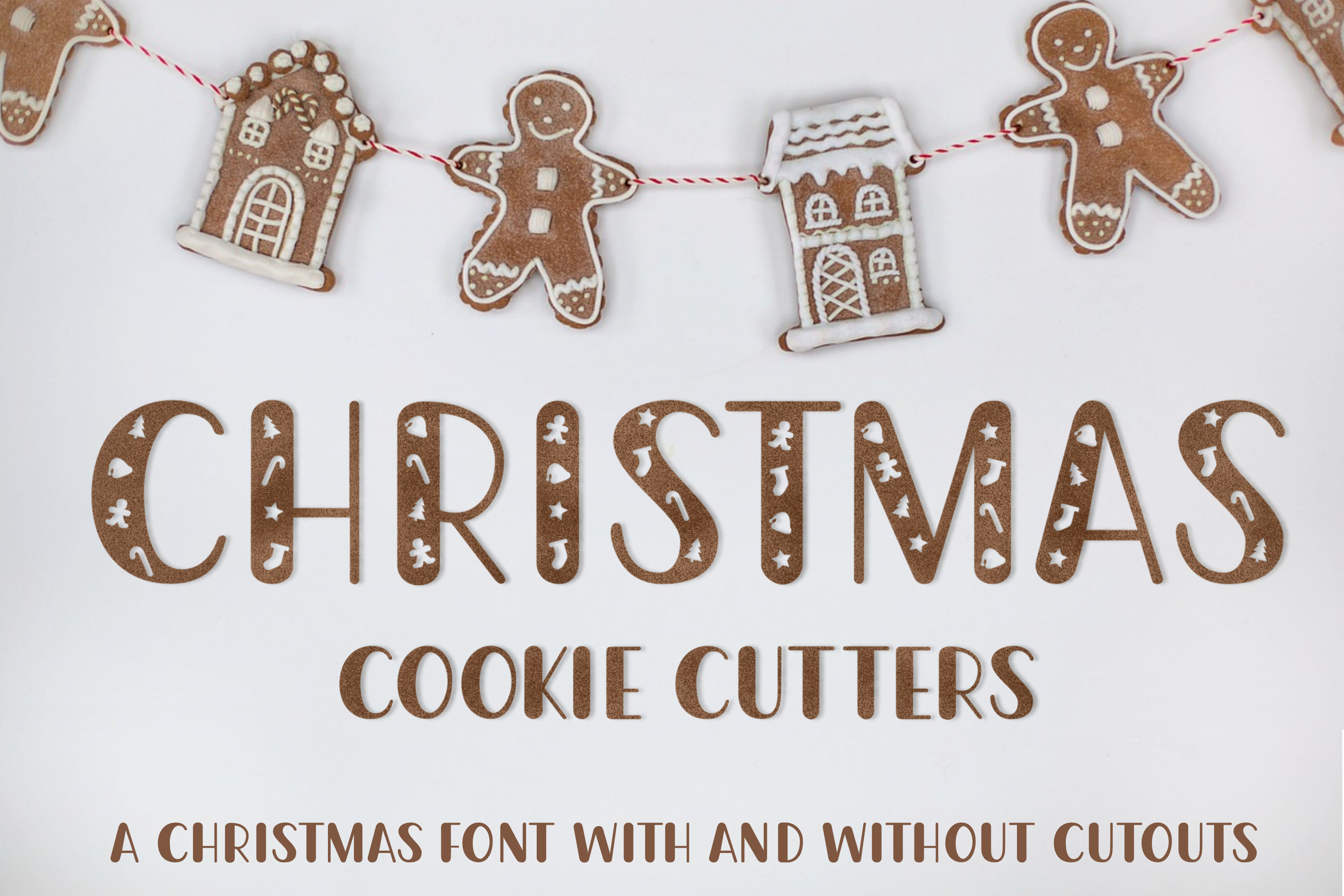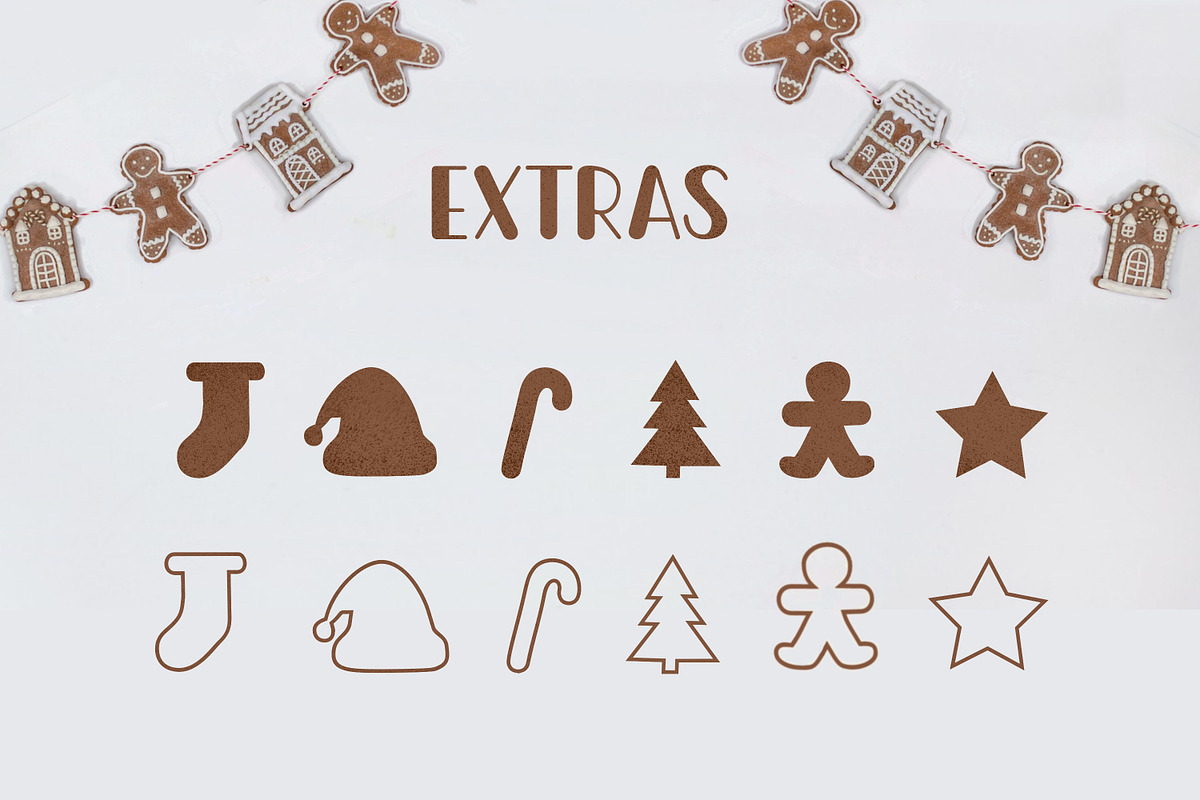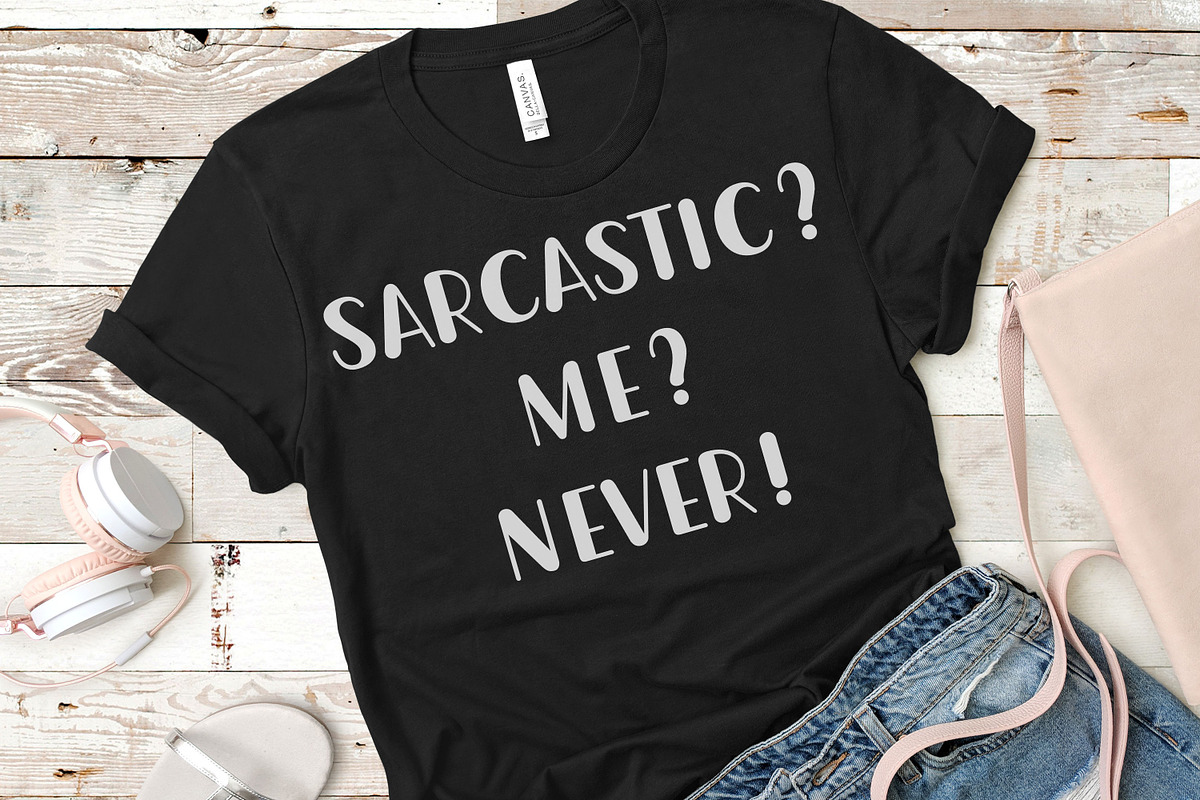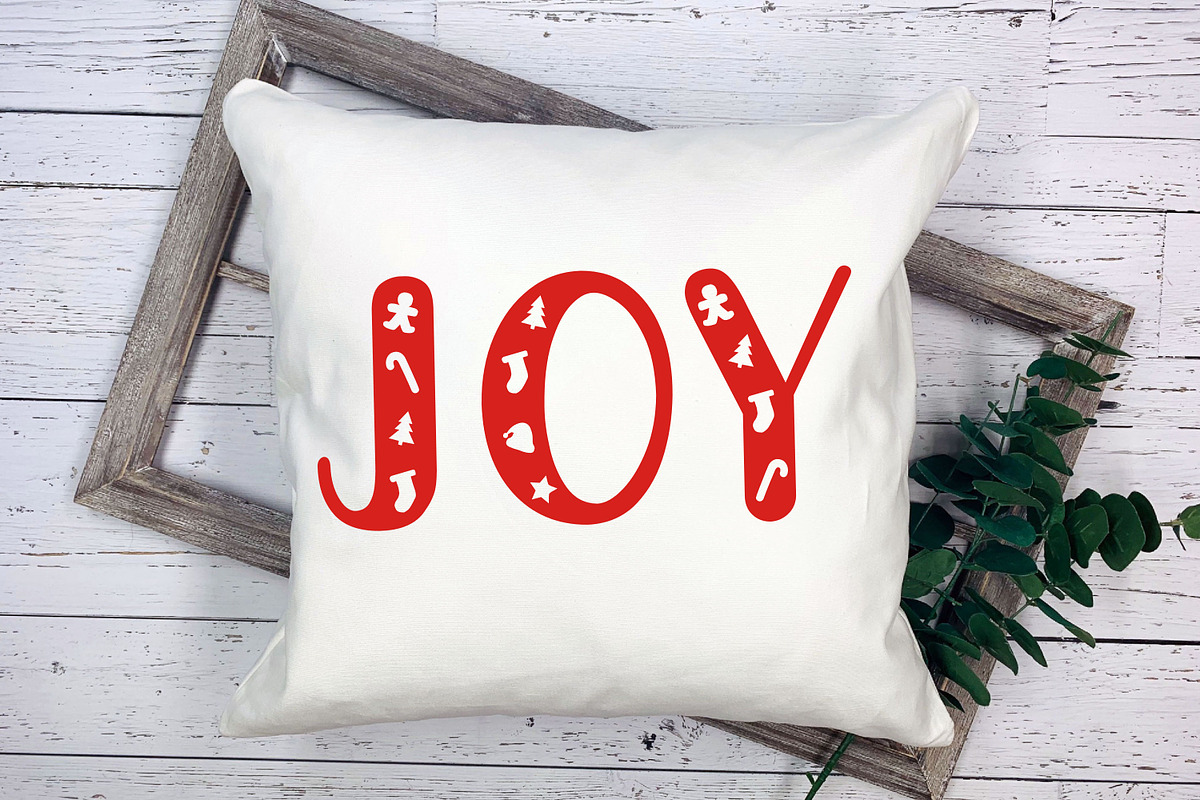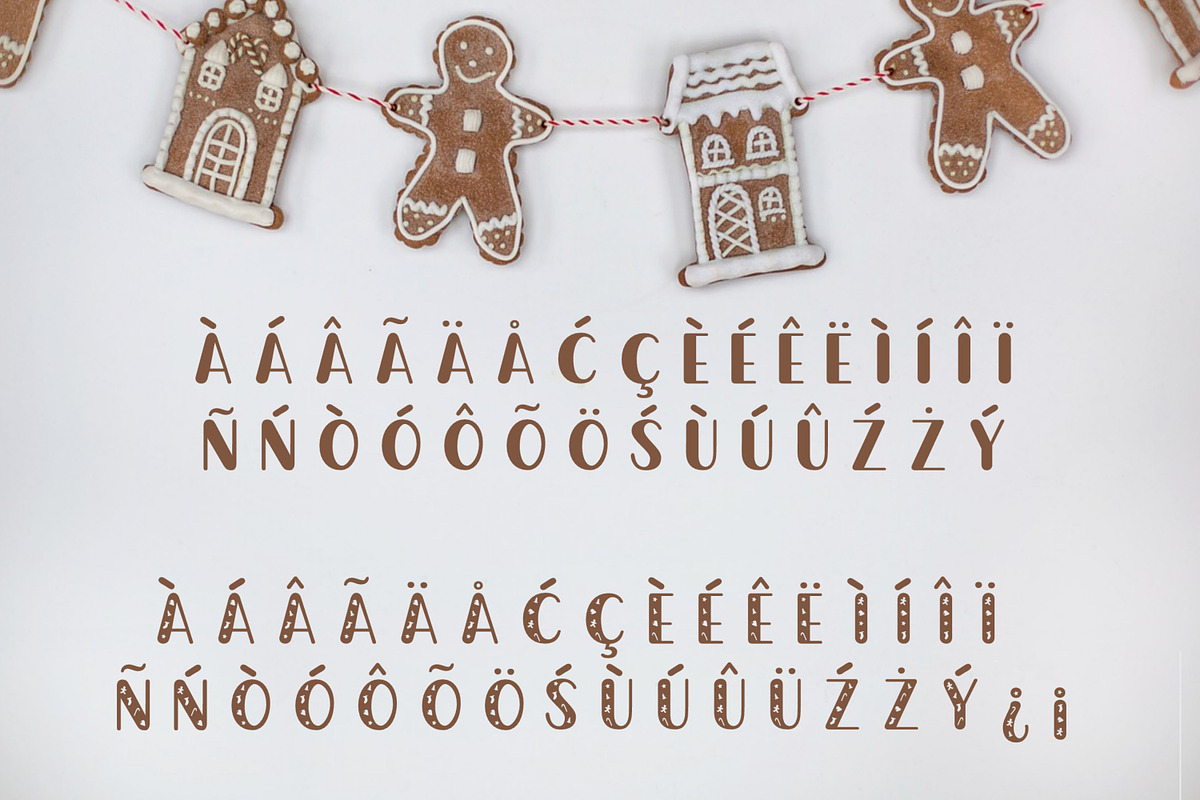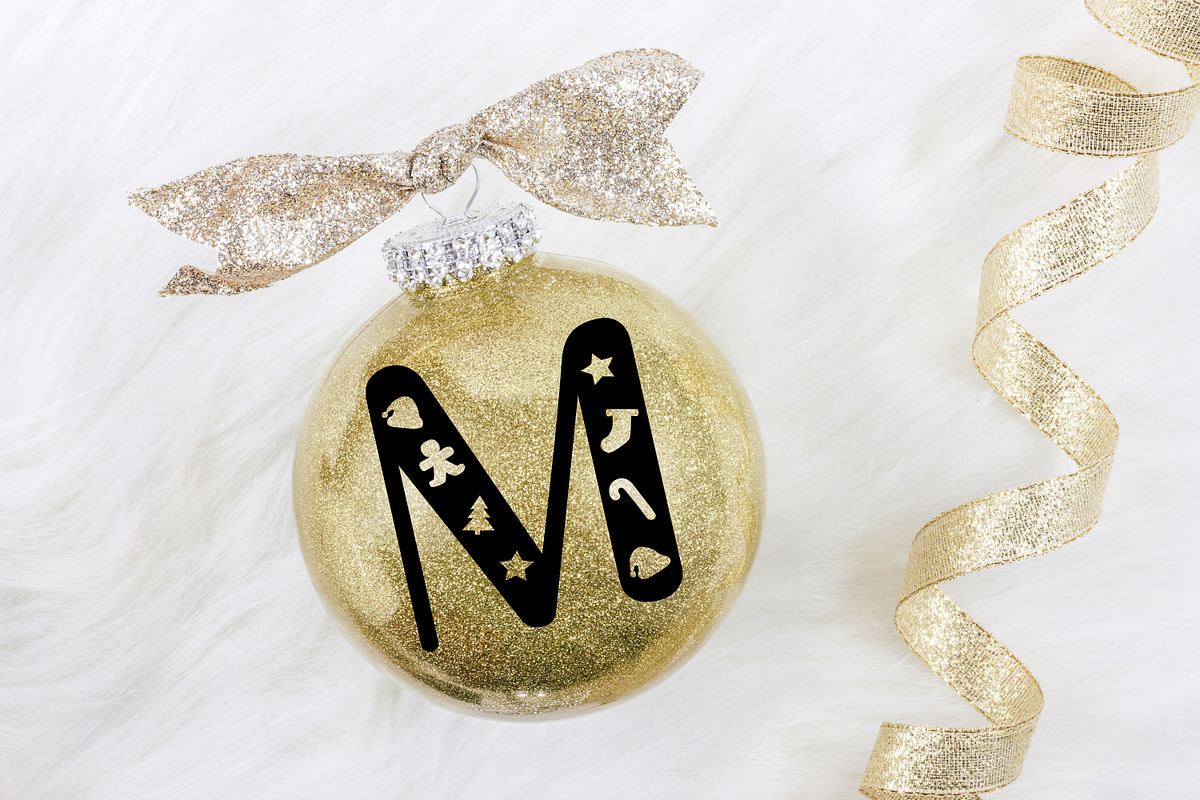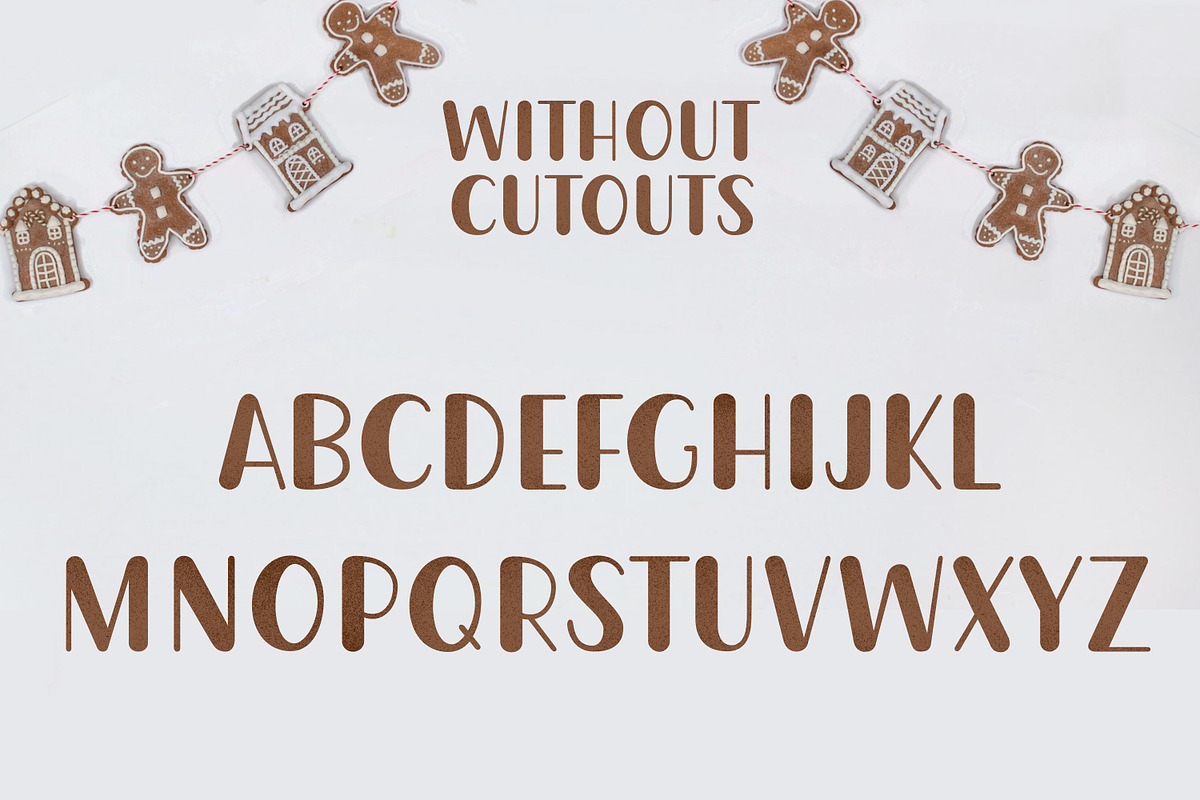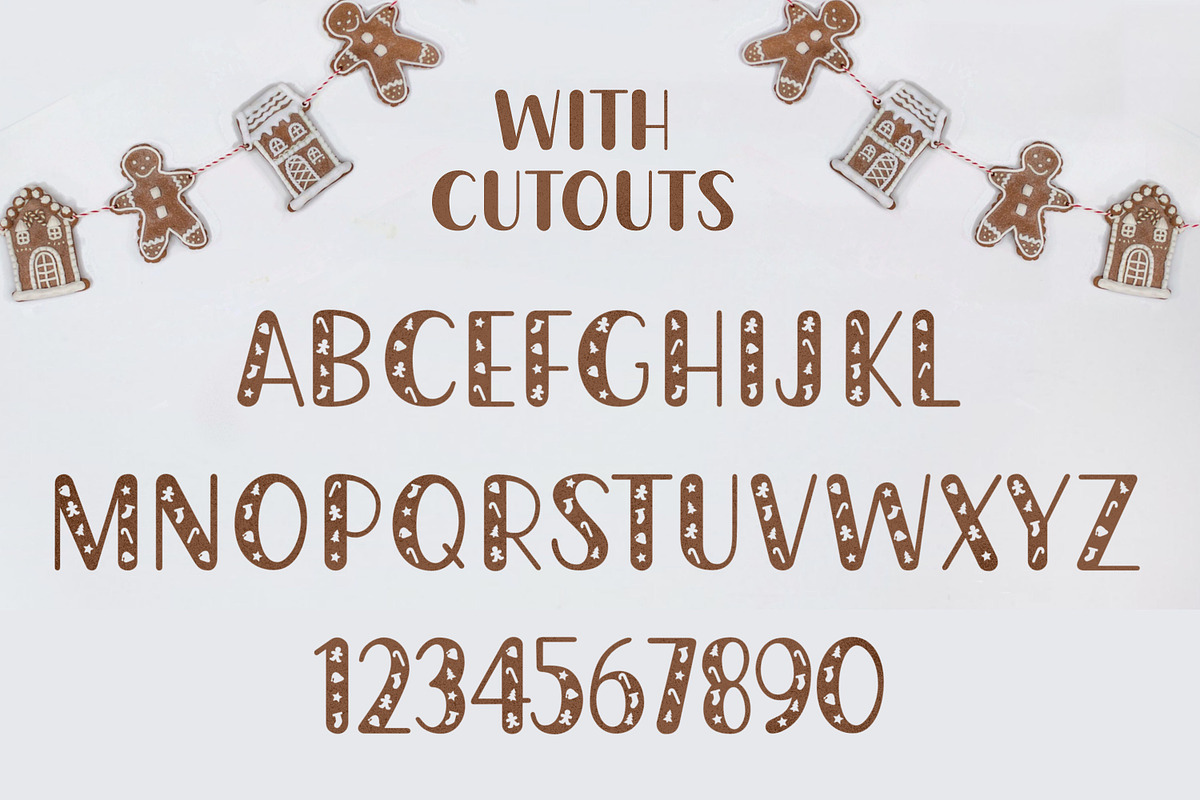
Christmas Cookie Cutters Font
Christmas Cookie Cutters is an all caps font that comes with solid (capital keys) an cutout letters (lowercase keys) A-Z, numbers 0-9, accented characters, basic punctuation PLUS Christmas shape extras!
Guide to extras - (The extras are also included in 1 SVG file with multiple layers - just select the ones you need and delete the others) [ - Christmas tree ]- Gingerbread man { - Stocking backslash - Star | - Candy Cane
- Christmas tree outline
- Gingerbread man ouline ^ - Stocking outline
- Star outline slash - Candy cane outline